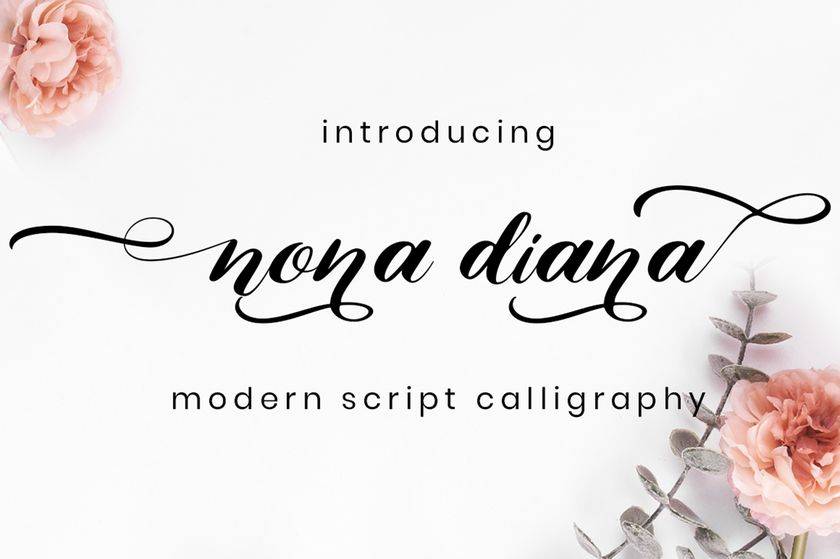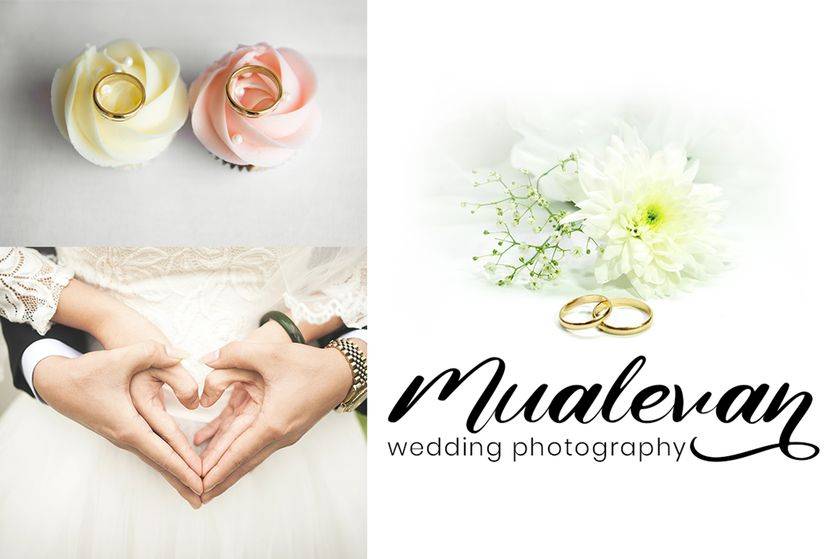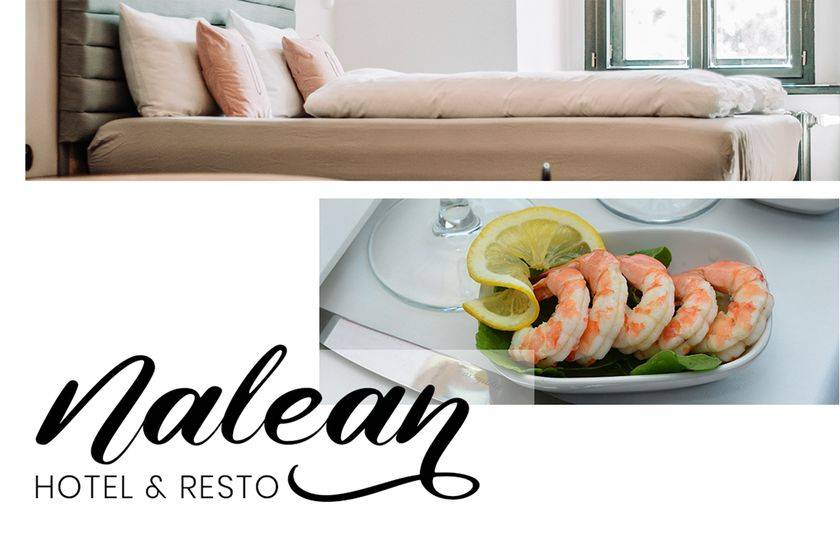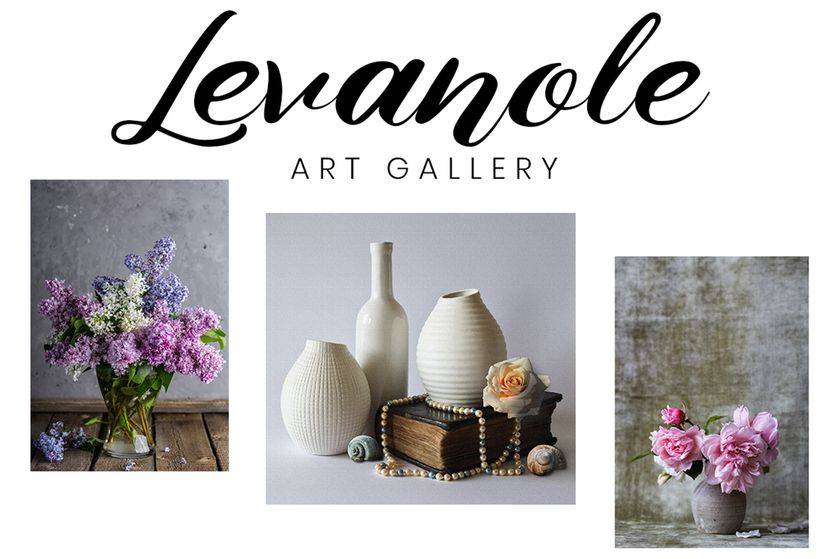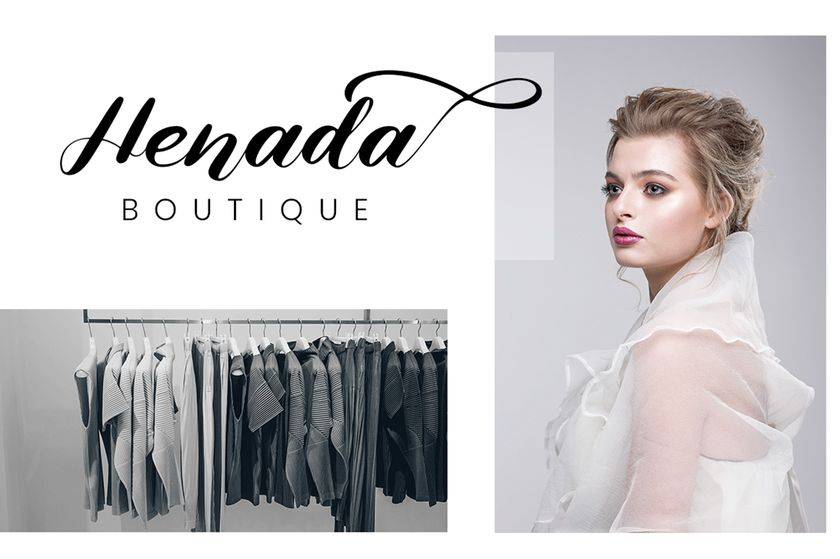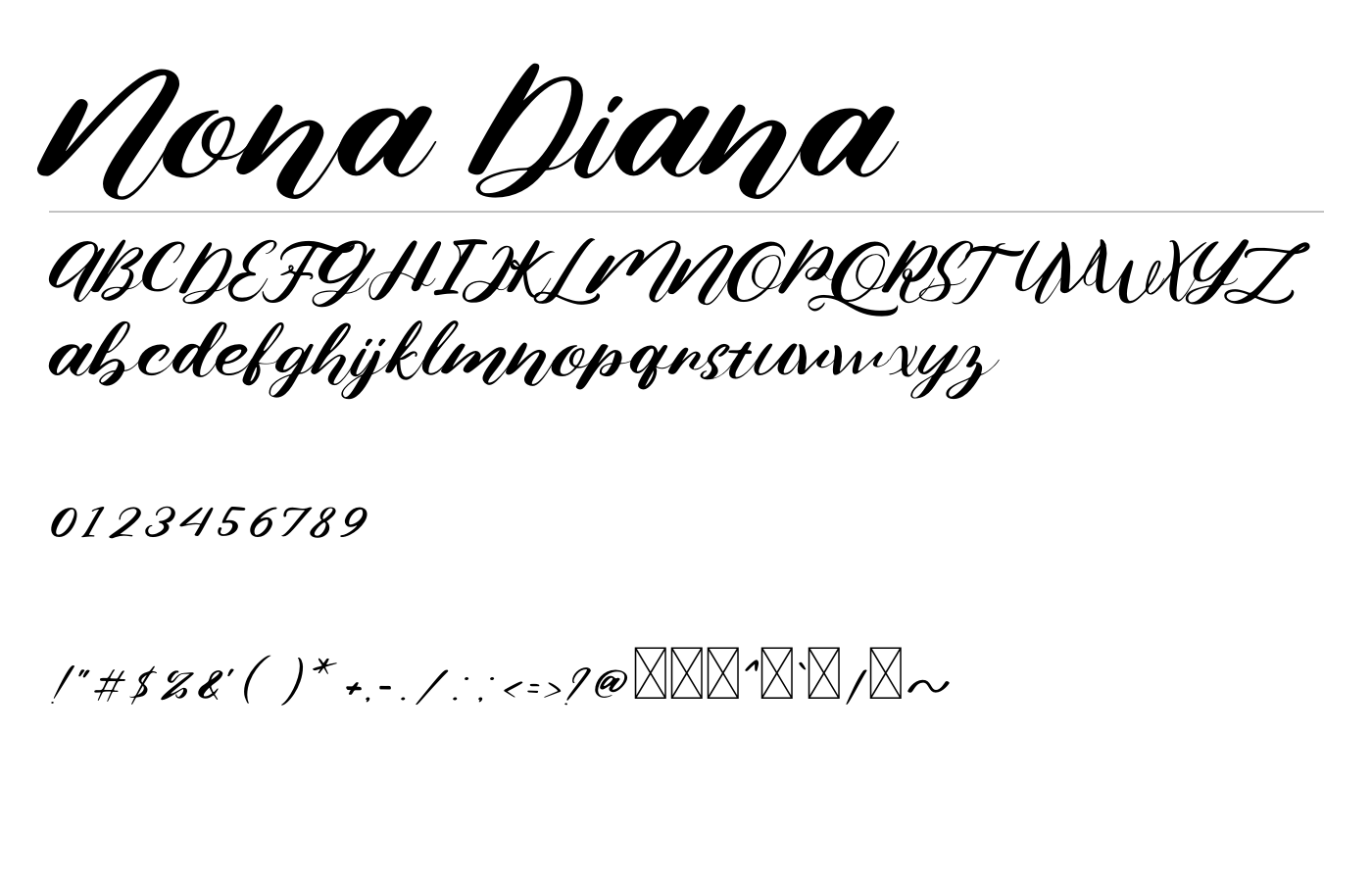
Nona Diana is a graceful script font characterized by its smooth, flowing strokes and elegant, calligraphic style. With its moderate contrast and slightly condensed letterforms, it offers a stylish and sophisticated feel, perfect for branding, invitations, and any project seeking a touch of refined femininity. Its unique, playful curves make it ideal for headlines and decorative uses where a modern yet classic script is desired.
Nona Diana Font
About Nona Diana Font
| Font family | Nona Diana Font |
| Designer | Fadli Ramadhan Iskandar |